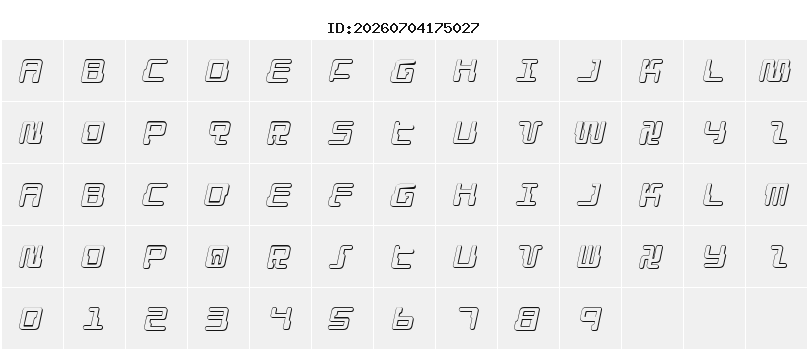
Droid Lover 3D Expanded Italic Preview
• Font Name: Droid Lover 3D Expanded Italic
• Font Style: Expanded Italic
• Full Font Name: Droid Lover 3D Expanded Italic
About Droid Lover 3D Expanded Italic.ttf
Droid Lover 3D Expanded Italic.ttf is a modern, elegant sans-serif font designed for ultimate readability and visual harmony. Perfect for branding, headlines, web design, and print materials.